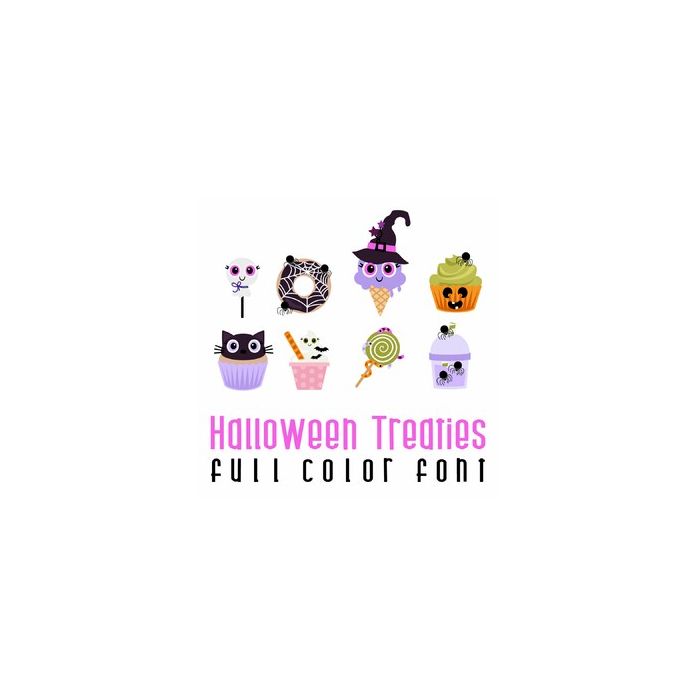
This adorable full color doodlebat font features adorable Halloween treats. Perfect for cards, crafts, gifts, decor, scrap book pages, planner stickers and more!